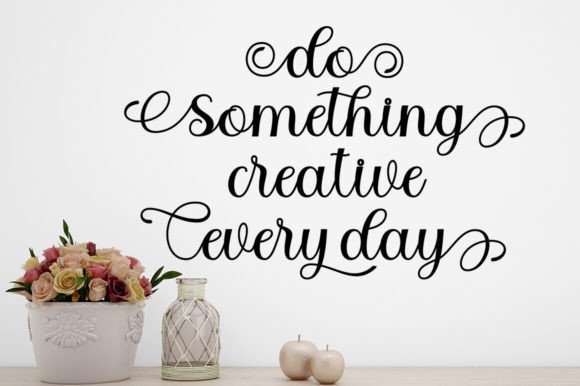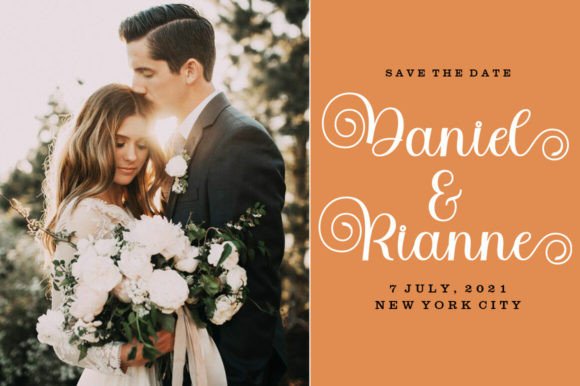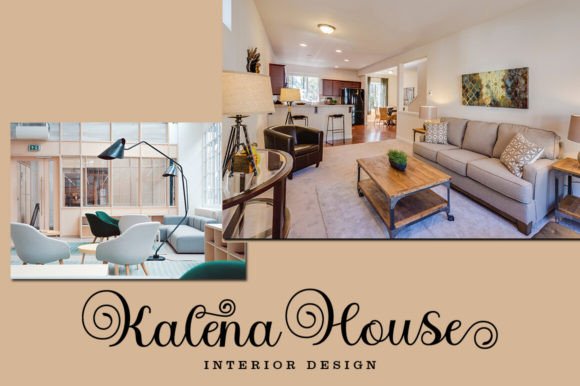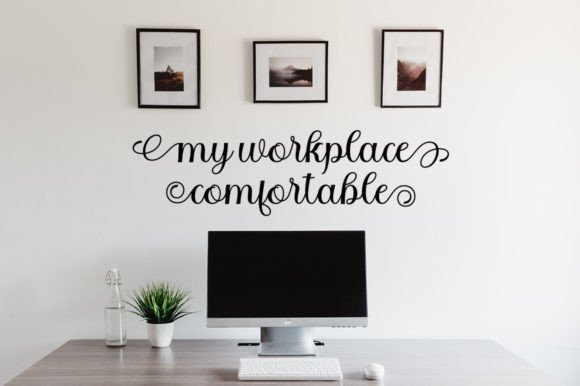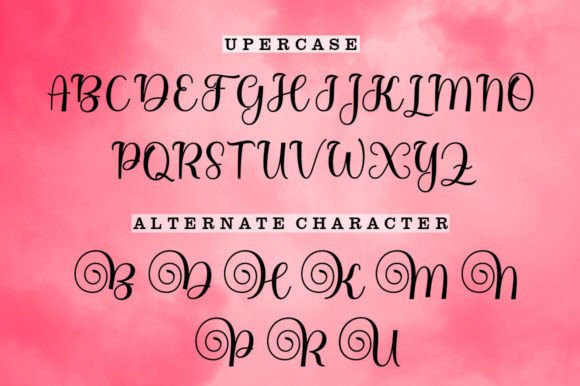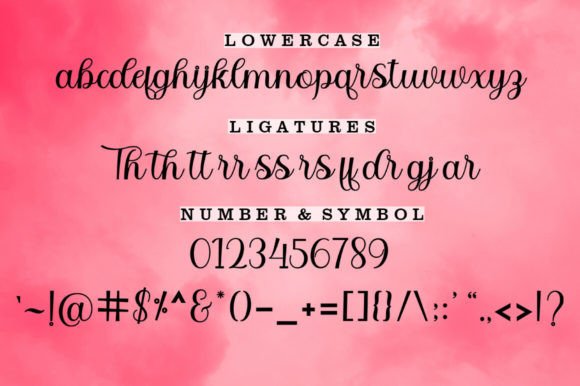
The Perfect Script Font for Your Next Creative Project
As you sit at your desk, staring at a blank canvas, the ideas start flowing, and your imagination runs wild. You envision a beautiful, elegant design that captures the essence of your project, but the right font seems elusive. This is where the Bidgette Font comes in – a stunning script font that will transport your creations to new heights.
Bidgette Script is more than just a font; it’s a versatile tool that can elevate any project, from invitations and product packaging to photography and logos. With its natural, flowing style and numerous alternative options, this font is perfect for designers looking to add a touch of sophistication to their work. Whether you’re a seasoned pro or just starting out, the Bidgette Font is a valuable addition to your design arsenal.
Bidgette Font Key Features
- Font Family: Bidgette Font
- Font Style: Script, Casual
- Unique Characteristics: Hand-drawn design, elegant and cursive script, ideal for creative and artistic projects
Bidgette Font Review
I recently had the chance to work with the Bidgette font, and I must say it’s been an interesting experience. Let’s dive into the good, the bad, and the overall impression.
- Unique Character: Bidgette has a distinctive look that sets it apart from more common fonts. The whimsical feel makes it perfect for projects that need a touch of personality.
- Legibility: Despite its playful nature, Bidgette is surprisingly legible, especially at larger sizes. This makes it a great choice for body text or headings.
- Customization Options: The font comes with a range of weights and styles, giving designers a lot of flexibility when it comes to creating visually appealing typography.
- Size Consistency: At smaller font sizes, Bidgette can start to look a bit rough around the edges. This may be a concern for designers who need to use the font at smaller sizes.
- Lack of italics: While the font has a range of weights, it doesn’t include italic versions. This may be a limitation for designers who rely on italics for emphasis or style.
Overall, I think Bidgette is a solid choice for designers who want to add some personality to their projects. While it has some limitations, its unique character and customization options make it a great option for the right project.
For best results, use Bidgette Font for headings and titles to add a touch of elegance to your designs.
For best results, use Bidgette Font for titles and headings to add a touch of sophistication to your designs.
For best results, use Bidgette Font for headings and titles to add a touch of professionalism to your documents.
Bidgette Font is ideal for:
- Editorial and publishing designs
Remember to experiment with different font sizes, colors, and styles to get the most out of Bidgette Font.
Playfair Display is an elegant, high-end font perfect for luxury brands, weddings, and high-end fashion magazines. It features intricate details and is highly readable even in smaller sizes. When to use: luxury brands, high-end fashion, and weddings. Comparison: Bidgette Font is more casual and modern, while Playfair Display is more traditional and elegant.
Lato is a clean, modern sans-serif font ideal for tech startups, blogs, and websites that require a clean and minimal design. It’s highly readable and works well in both body and heading text. When to use: tech startups, blogs, and minimalistic websites. Comparison: Bidgette Font is more playful and decorative, while Lato is more straightforward and clean.
Great Vibes is a modern, cursive font perfect for creative agencies, design studios, and websites that require a touch of personality. It’s highly expressive and works well for headings and titles. When to use: creative agencies, design studios, and websites that require a personal touch. Comparison: Bidgette Font is more casual and laid-back, while Great Vibes is more expressive and elegant.
Abril Fatface is a stylish, high-end font ideal for fashion magazines, luxury brands, and high-end design projects. It features bold lines and is highly readable even in smaller sizes. When to use: fashion magazines, luxury brands, and high-end design projects. Comparison: Bidgette Font is more modern and playful, while Abril Fatface is more traditional and elegant.